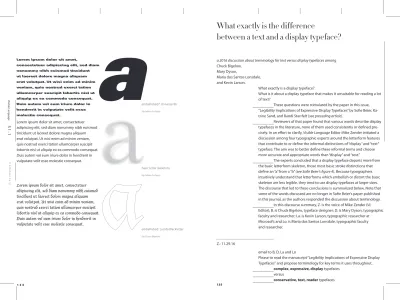
What exactly is the difference
between a text and a display typeface?
a 2016 discussion about terminology for text versus display typefaces among
Chuck Bigelow, Mary Dyson,
Maria dos Santos Lonsdale, and Kevin Larson.
What exactly is a display typeface?
What is it about a display typeface that makes it unsuitable for reading a lot of text?
These questions were stimulated by the paper in this issue, “Legibility Implications of Expressive Display Typefaces” by Sofie Beier, Ka-trine Sand, and Randi Starrfelt (see preceding article).
Reviewers of that paper found that various words describe display typefaces in the literature, none of them used consistently or defined pre-cisely. In an effort to clarify, Visible Language Editor Mike Zender initiated a discussion among four typographic experts around the letterform features that contribute to or define the informal distinctions of “display” and “text” typeface. The aim was to better define these informal terms and choose more accurate and appropriate words than “display” and “text.”
The experts concluded that a display typeface departs more from the basic letterform skeleton, those most basic stroke distinctions that define an “a” from a “b” (see Sofie Beier’s figure 4). Because typographers intuitively understand that letterforms which embellish or distort the basic skeleton are less legible, they tend to use display typefaces at larger sizes. The discourse that led to these conclusions is summarized below. Note that some of the words discussed are no longer in Sofie Beier’s paper published in this journal, as the authors responded the discussion about terminology.
In this discourse summary, Z. is the voice of Mike Zender (VL Editor); B. is Chuck Bigelow, typeface designer; D. is Mary Dyson, typographic faculty and researcher; La. is Kevin Larson, typographic researcher at Microsoft; and Lo. is Maria dos Santos Lonsdale, typographic faculty and researcher.
Z.: 11.29.16
email to B, D, La and Lo
Please to read the manuscript “Legibility Implications of Expressive Display Typefaces” and propose terminology for key terms it uses throughout.
complex, expressive, display typefaces
versus
conservative, text, reader typefaces
basic letter skeletons
(by Adrian Frutiger)
embellished?: Universe 86
(by Adrian Frutiger)
embellished: Lucida Blackletter
(by Chuck Bigelow) Lorem ipsum dolor sit amet,
These and other available terms do not seem adequate. They’re imprecise. They’re not descriptive of the features that compromise the distinctions.
I would like to you to propose better words for these concepts. Please suggest some words that are:
more accurate – somehow reflect the conceptual underpinnings behind these terms;
more memorable – memorable in a typographic sense, as related to typography;
still natural – still related to the natural, everyday meanings as-sociated with words.
I’m hoping to avoid jargon or academic language that combines five nouns for each concept. Please propose words and exchange them via email to discuss and select what seems best. I will then suggest to the author that they adopt the proposed language.
NOTE:
The author uses “letter skeleton” on p. 8
This seems to me to be a key concept in play here. Perhaps letter skeleton could be a starting point for your consideration.
B.: 11.30.16
The need for definitions raised by this paper are reminiscent of what R. L. Pyke wrote in 1926:
“Four times as many writers have measured legibility as have defined it. … Three out of every four writers have been attempting to measure something the exact nature of which they have not paused to examine.”
Various terms have been used to describe text and display typeface: Complex
Expressive Style Text Display Body text Conservative
“Complex” can be too subjective. More precise would be “perimetric com-plexity” in the referenced paper by Pelli et al. (2006), who define complexity
as “perimeter squared over ink area”. I suggest a definition of “complex” with reference to Pelli.
That said, we might expect the opposite of “complex” to be “sim-ple”. Are there “complex display” typefaces and “simple display” typefaces? Yes, a simple (in terms of perimetric complexity) display face would Adrian Frutiger’s Univers 85 Extra Black Oblique. A complex display face would be Roger Excoffon’s Calypso.